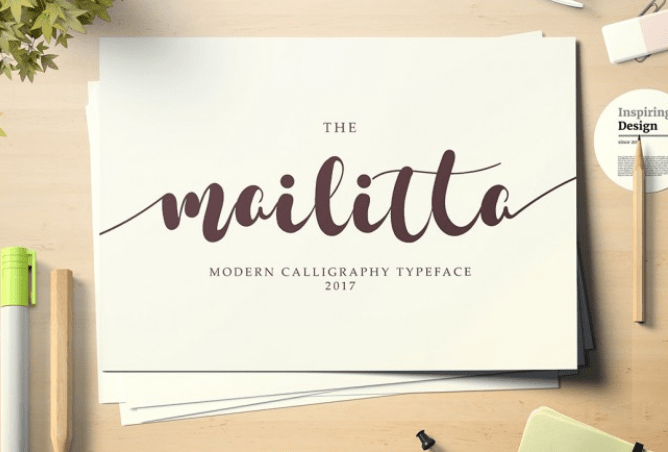
Mailitta Font Review at a glance
Mailitta Font is modern script font. With modern script style, this font will perfect for many different project ex: quotes, blog header, poster, wedding, branding, logo, fashion, apparel, letter, invitation, stationery, etc. Mailitta Font comes with our Complete License. The same as with all our paid goods.